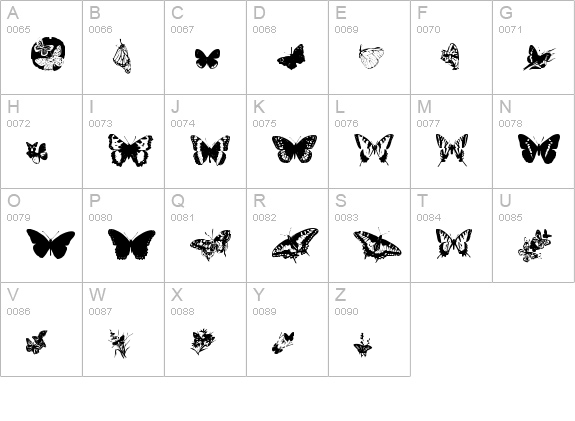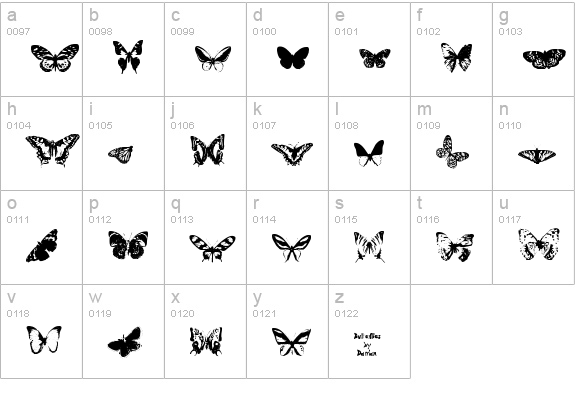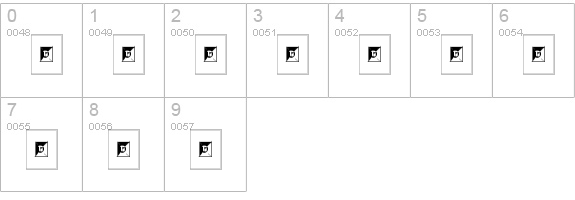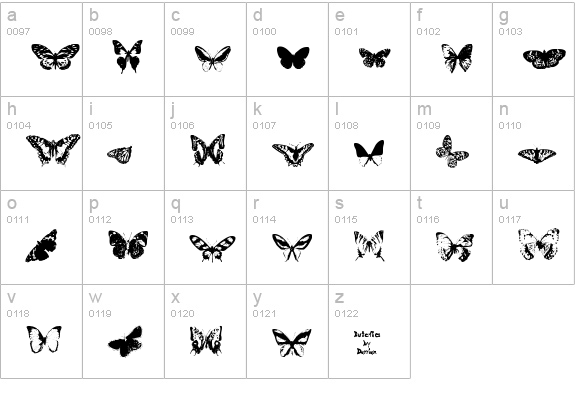
"Butterflies by Darrian is a whimsical and elegant font that captures the delicate beauty of fluttering butterflies. With its graceful curves and intricate details, this font is perfect for adding a touch of charm to your designs. Whether you're working on a wedding invitation, a branding project, or simply want to add a touch of sophistication to your creations, Butterflies by Darrian is sure to impress. What makes Butterflies by Darrian even more appealing is that it is available for free download at FontsMarket.com. This means you can easily access this stunning font without any cost, making it a valuable addition to your font collection. So go ahead and elevate your designs with the enchanting Butterflies by Darrian font today!"